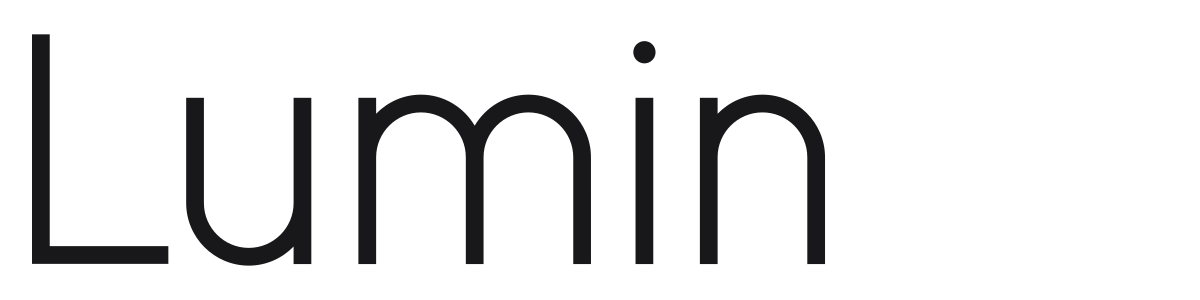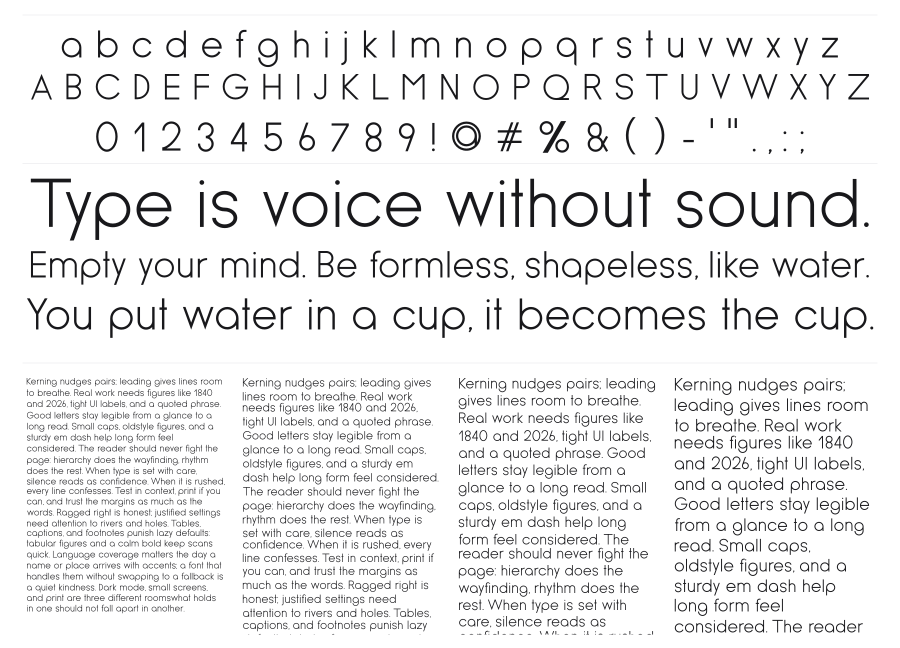
Lumin
by Cameron Fink
Lumin is a light geometric sans-serif built around near-perfect circular forms and a clean monoweight stroke. Wide proportions and generous spacing give it an airy, refined quality that reads as quietly confident rather than cold. It fits naturally into contexts where whitespace and restraint are part of the message.